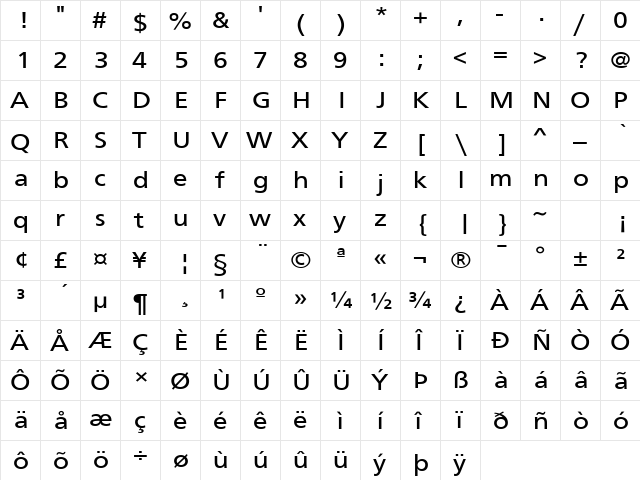
Frutiger Extra Regular
Design Context for Frutiger Extra Typeface
Frutiger Extra takes a measured approach to typography — its balanced proportions and neutral character make it a reliable workhorse for both digital and print work.